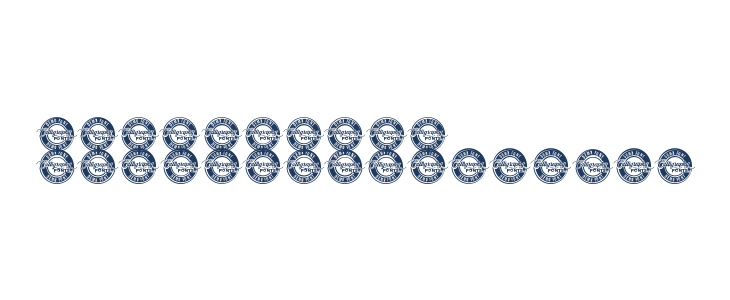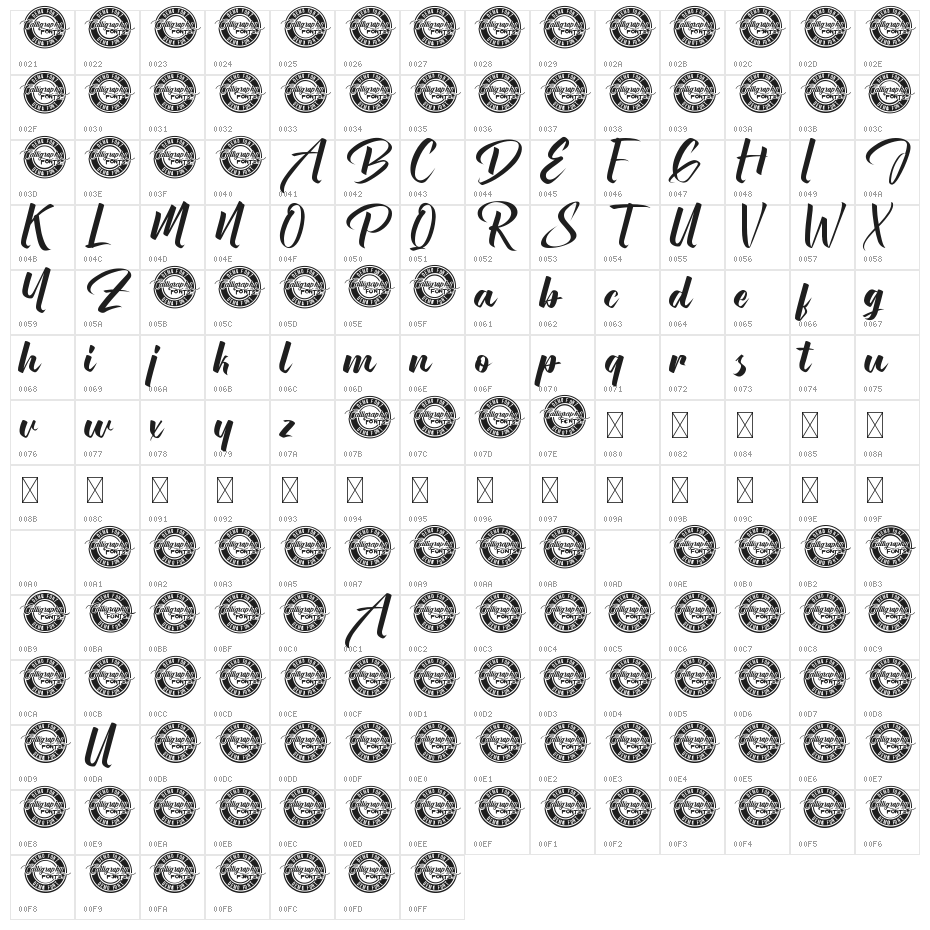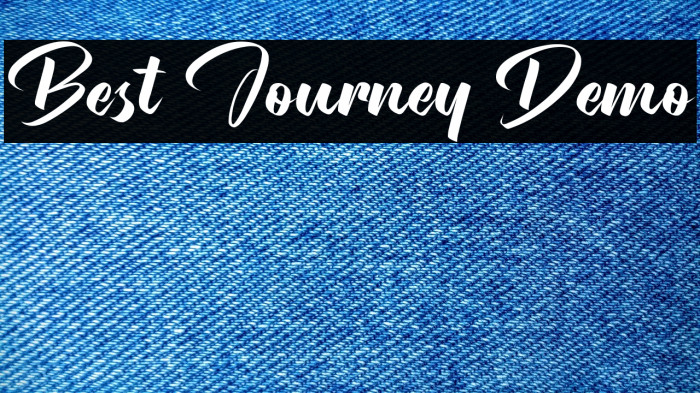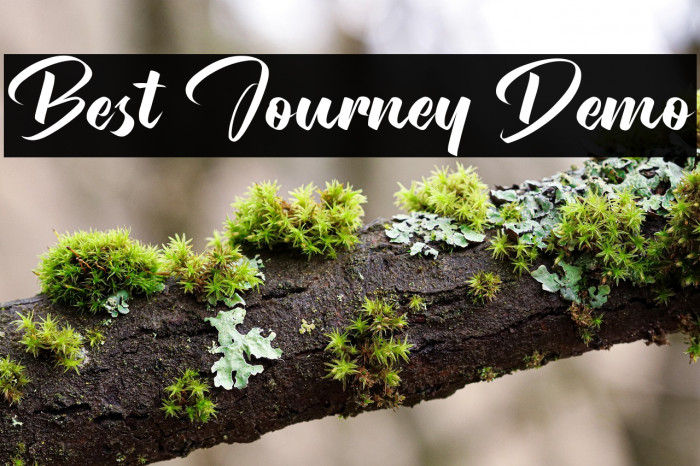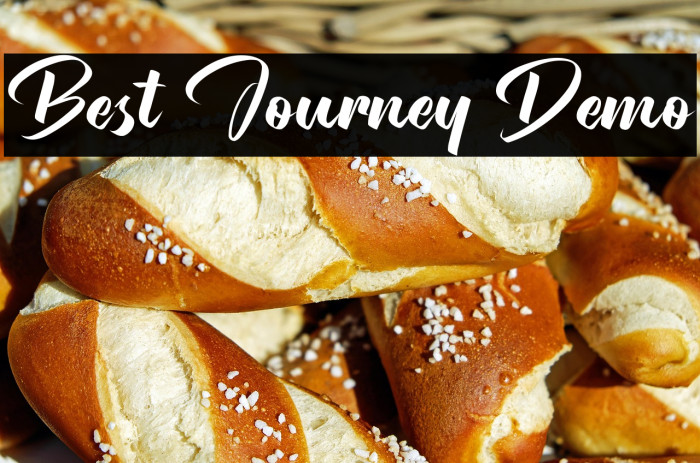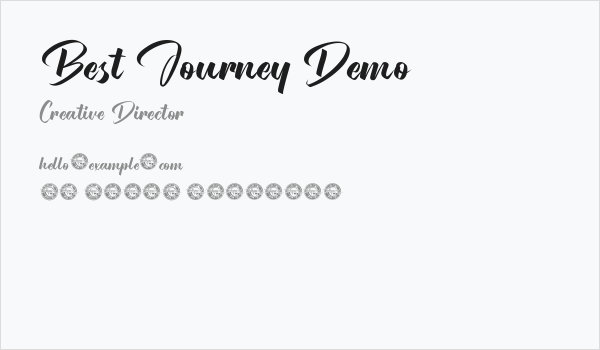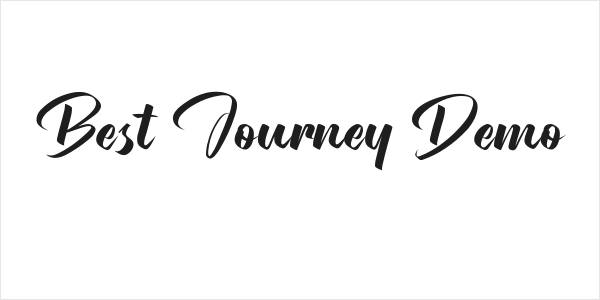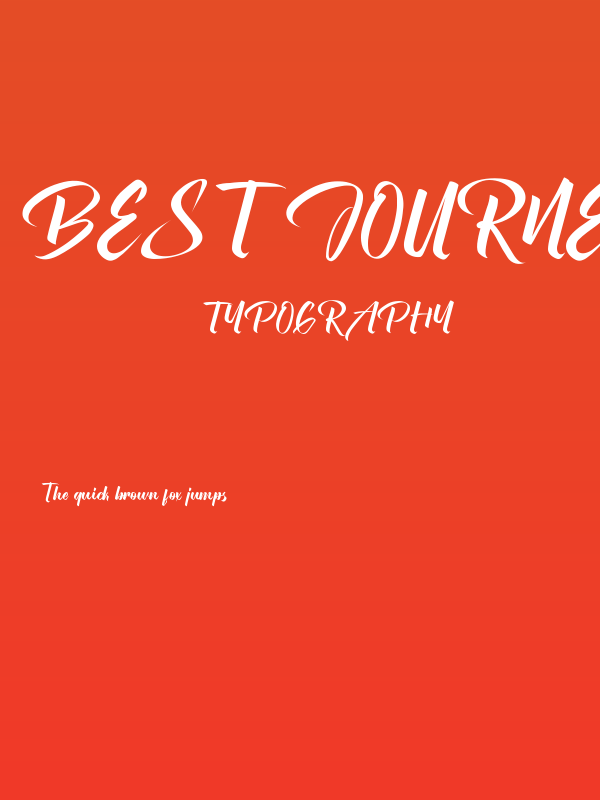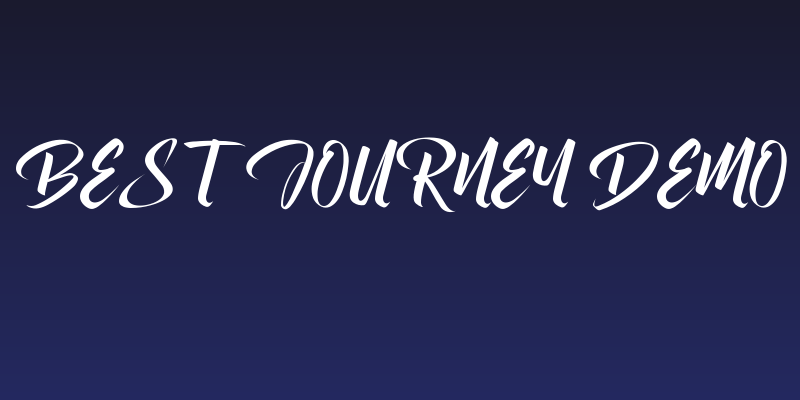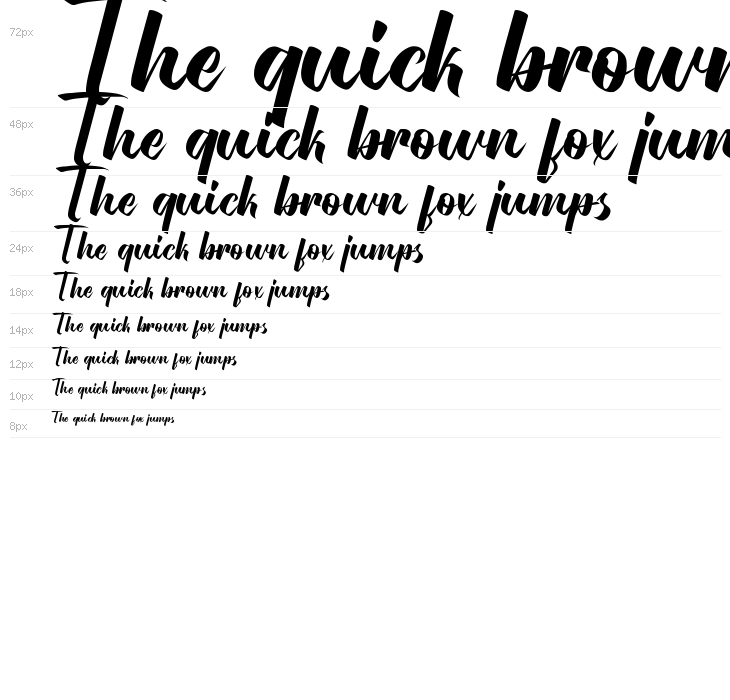
Best Journey Demo Font
Best Journey Demo Description
This font features a dynamic and expressive script style, characterized by fluid, sweeping strokes that convey a sense of elegance and movement. The uppercase letters are bold and slightly slanted, with a consistent stroke width that adds to the font's cohesive appearance. The lowercase letters maintain the same fluidity, with some characters featuring distinctive loops and flourishes that enhance the overall aesthetic. The font includes a complete set of numerals and a selection of special characters, ensuring versatility for various design needs. Its hand-drawn quality gives it a personal and artistic touch, making it suitable for projects that require a creative and sophisticated look.